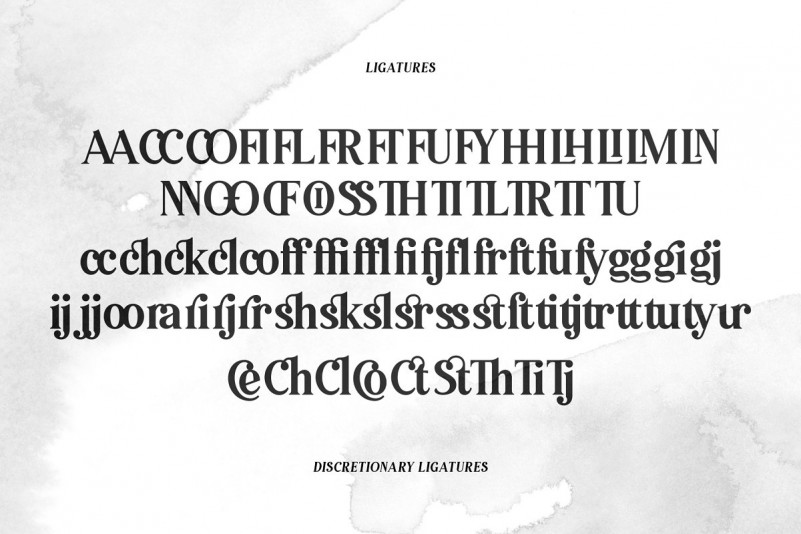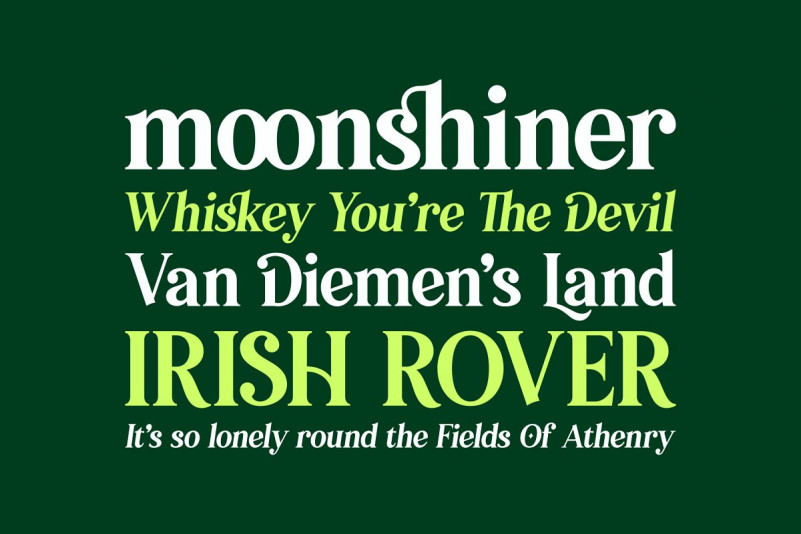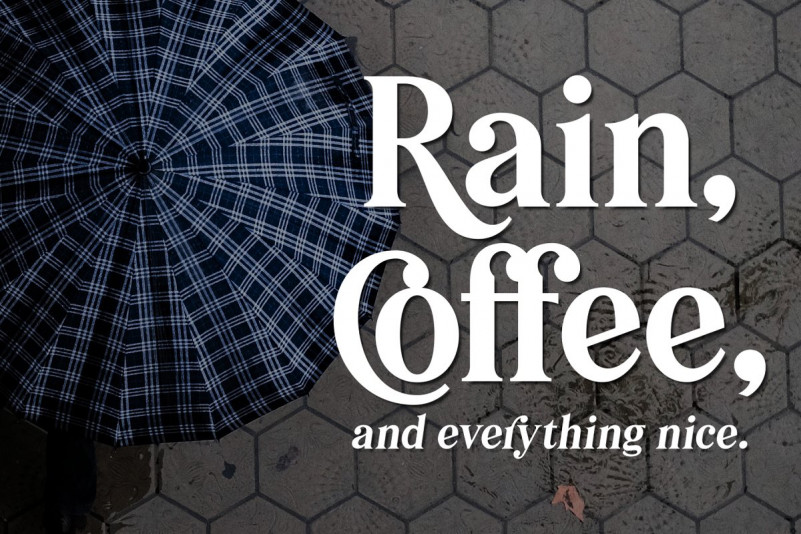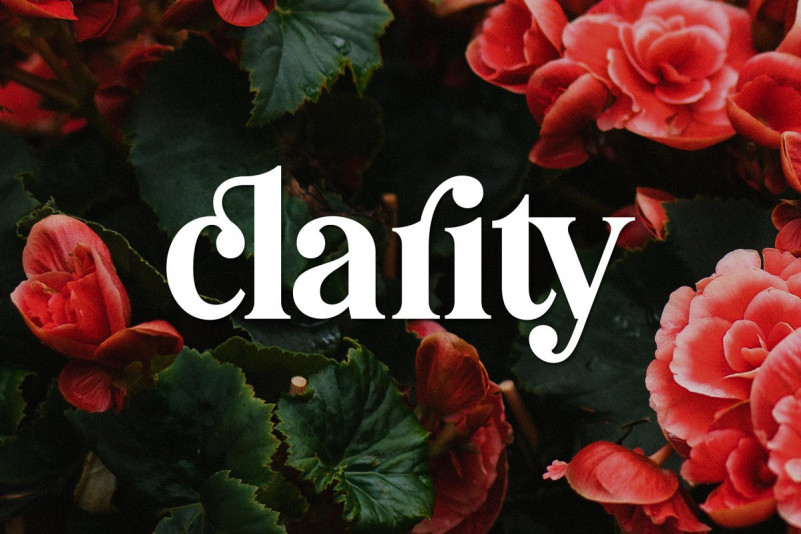
Pioggia Modern Serif Font
Thank you for checking Pioggia Font! It is designed and shared by Twicolabs Fontdation. Pioggia Modern Serif Font – a modern and playful serif font. This clean and minimalistic serif is crafted with love and high attention to the details.
Packed with OpenType features (such as alternate chars, swashes, ligatures, etc), lets you play and explore every characters available. Pioggia is very versatile, suits best for almost everything, whether you’re working on classic themed design, or the modern ones.
If you’re often working with a logotypes, hipster-quote writings, t-shirt designs, etc, Pioggia is your next go-to font.